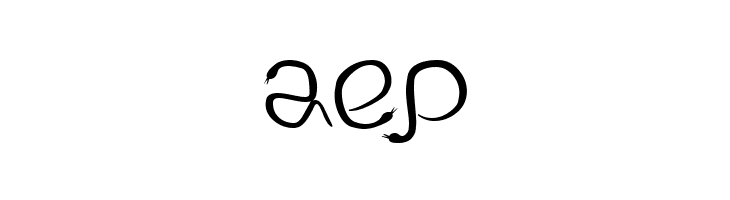
A whimsical and elegant cursive font with decorative flourishes.
A fluid and graceful script font with a handwritten appearance.
An intricate, decorative font with flowing, serpentine lines and artistic curves.
A decorative font with characters formed by intertwining serpents.
A modern, rounded font with a playful and futuristic design.